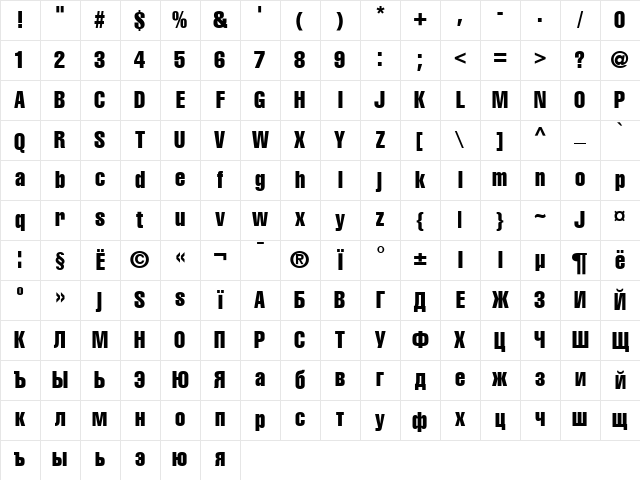
Complete AG Letterica Compr-Plain Medium glyph index. Displaying only characters natively supported by AG Letterica Compr-Plain Medium font.
AG Letterica Compr-Plain is a composed and adaptable typeface that performs quietly and consistently across a wide range of design contexts.